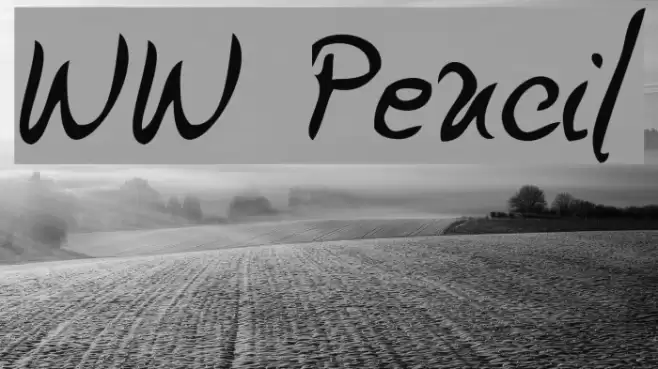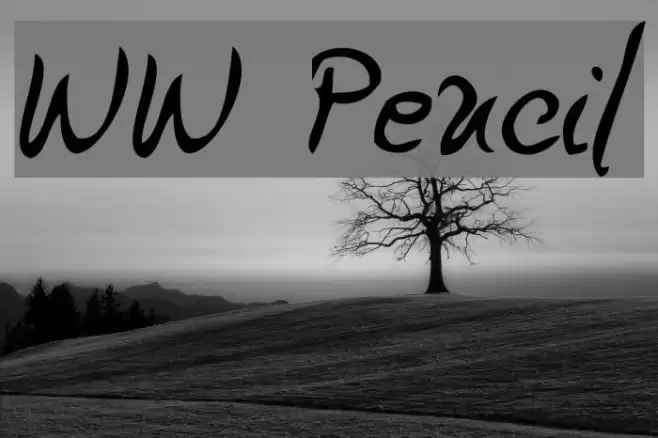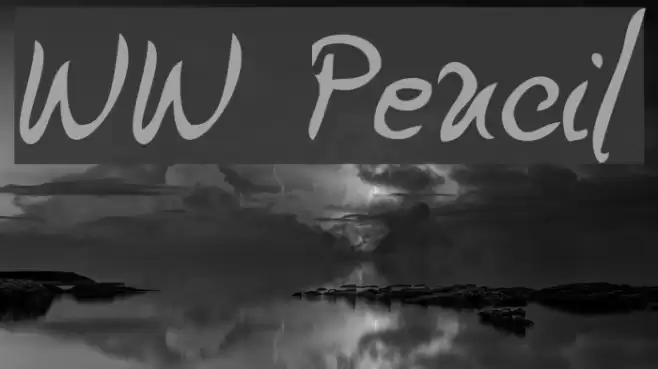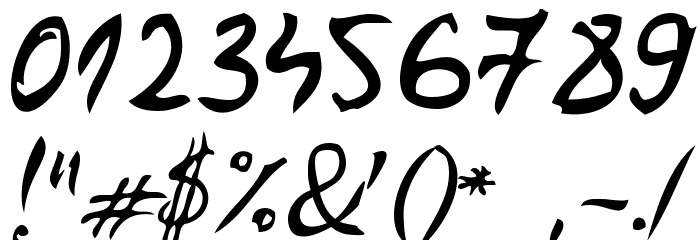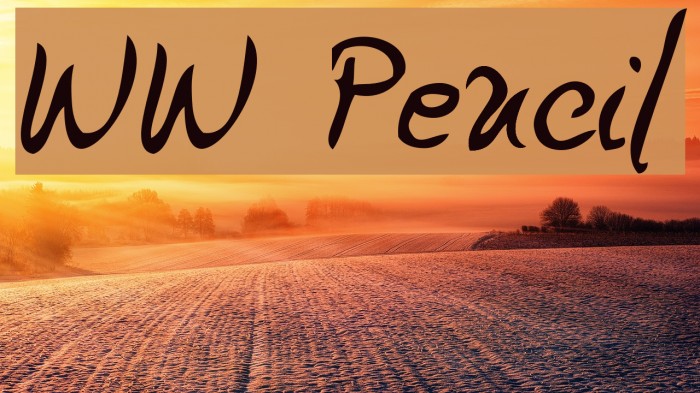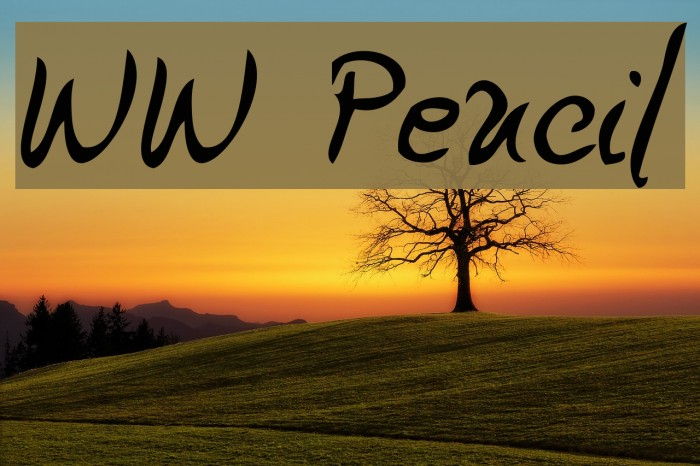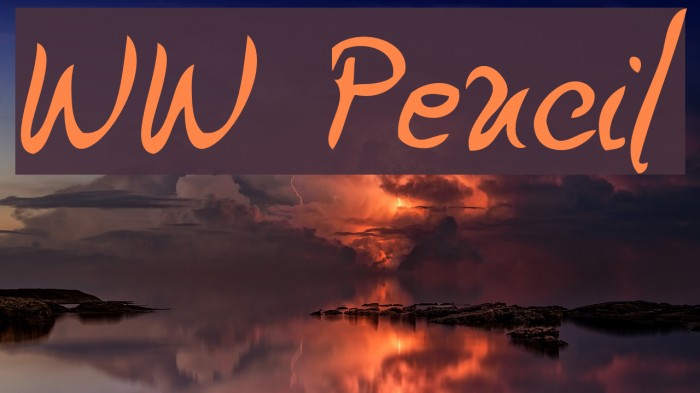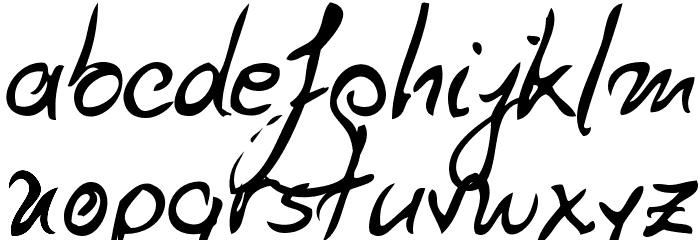
WW Pencil Font
WW Pencil Description
This font exudes a dynamic and artistic flair, characterized by its fluid, brush-like strokes that convey a sense of movement and creativity. The uppercase letters are bold and expressive, with varying stroke widths that add a lively rhythm to the text. The lowercase letters maintain this energetic style, with some characters featuring dramatic loops and swashes that enhance the font's artistic appeal. The numerals are equally expressive, with a playful yet legible design. Special characters are crafted with the same attention to detail, ensuring consistency throughout. This font is perfect for projects that require a touch of creativity and individuality.
A dynamic, brush-style font with expressive strokes and artistic flair from Handwritten fonts.
- Proposed Projects: Ideal for creative projects such as art posters, branding for artistic ventures, or any design requiring a lively, hand-drawn aesthetic.
- Overall Style: Artistic, Creative
- Use Case: Logos, Posters, Creative Branding